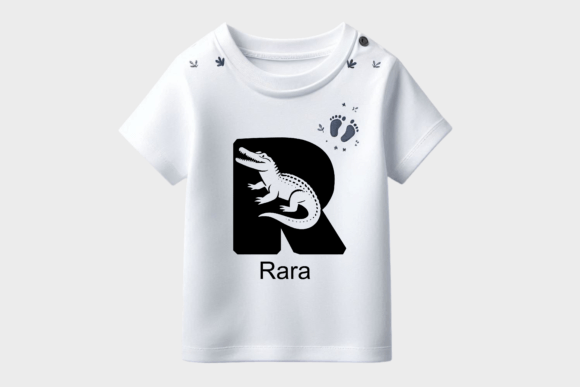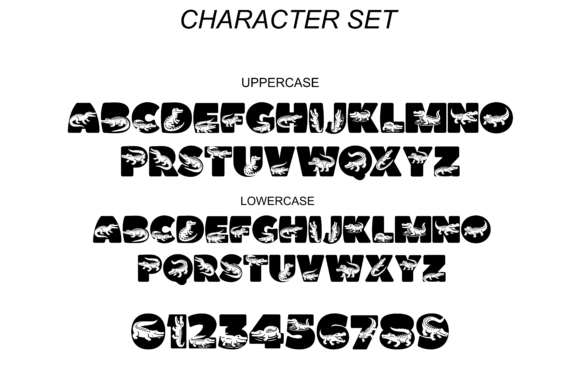
Unleashing the Wild Side of Typography: A Deep Dive into Aligator Font
I’ll never forget the design project that led me to discover the captivating world of Aligator Font. It was a branding initiative for a trendy outdoor gear company, and I was tasked with creating a logo that embodied the spirit of adventure and freedom. As I scrolled through font libraries, I stumbled upon Aligator Font – a quirky, yet sophisticated typeface that instantly resonated with the project’s essence.
From that moment on, I was hooked. I began experimenting with Aligator Font, and its unique charm quickly won me over. In this article, I’ll share my journey of discovery, exploring the features, benefits, and creative possibilities of this extraordinary font.
A Honest Review: The Good, the Great, and the Quirks
What I Love About Aligator Font ✨
- 💥 Unique character: Aligator Font boasts an unmistakable personality that sets it apart from more traditional typefaces.
- ✅ Versatility: Its adaptability makes it suitable for a wide range of creative projects, from logos and branding to posters and digital media.
- 🎨 Artistic freedom: The font’s design encourages experimentation and creative exploration, making it perfect for designers and crafters looking to push boundaries.
- 🔍 Attention to detail: The creator’s attention to detail is evident in the font’s precision-crafted lines and curves.
- ⚠️ Limited use in formal contexts: Aligator Font’s playful nature might make it less suitable for formal or professional projects requiring a more traditional tone.
- 🤔 Occasional legibility issues: Some characters may be less legible at smaller font sizes or in certain color combinations.
The Story Behind Aligator Font: Designer Inspiration
Legend has it that Aligator Font was born from the creative mind of a traveling artist who drew inspiration from the mystical landscapes of the American South. The font’s designer aimed to capture the essence of the region’s unique blend of gothic and art nouveau styles, infusing it with a sense of whimsy and adventure.
| Font Name | Aligator Font |
| Author | Infontree |
Q: What makes Aligator Font unique?
A: Aligator Font’s distinctive character, precision-crafted lines, and artistic flair set it apart from more traditional typefaces.
Q: Is Aligator Font suitable for body text?
A: While Aligator Font can be used for body text, its unique character and quirks make it better suited for headlines, titles, and creative projects.